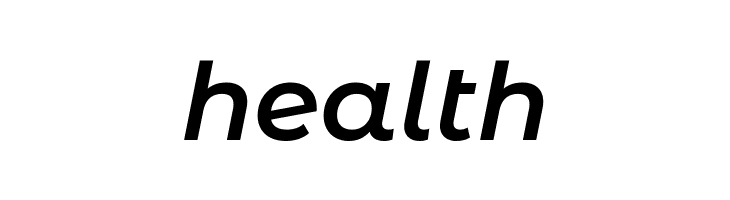
A modern, medium-weight italic sans-serif font with clean lines and balanced proportions.
A modern, geometric sans-serif font with a sleek, italicized style.